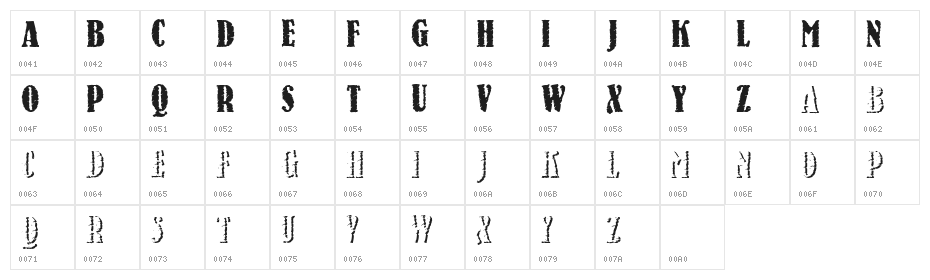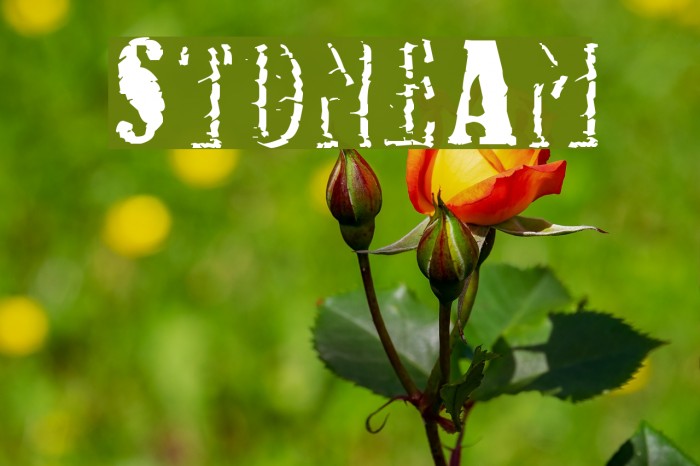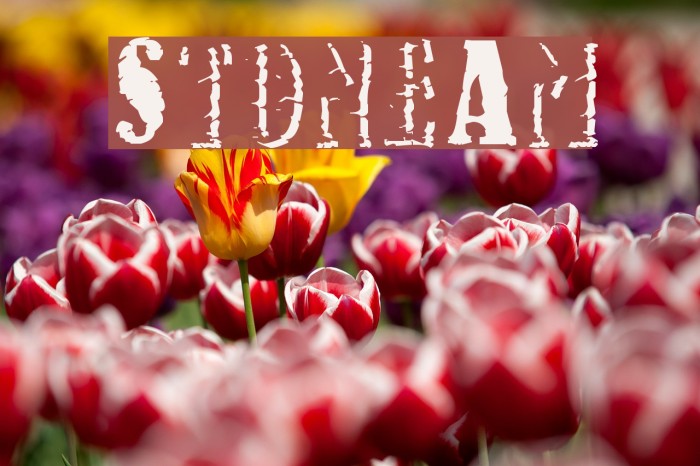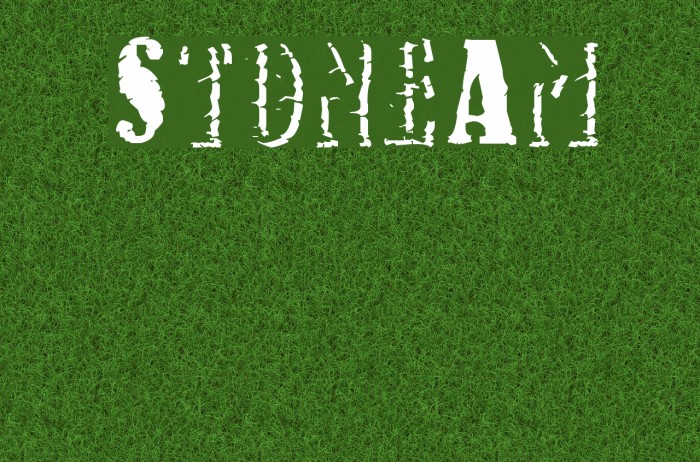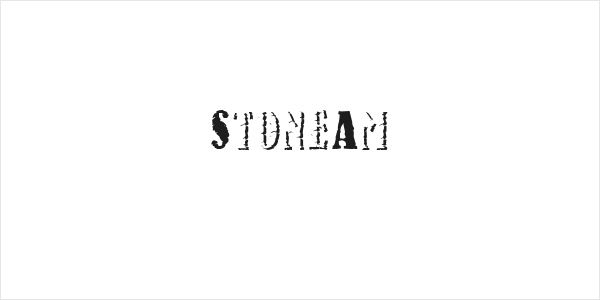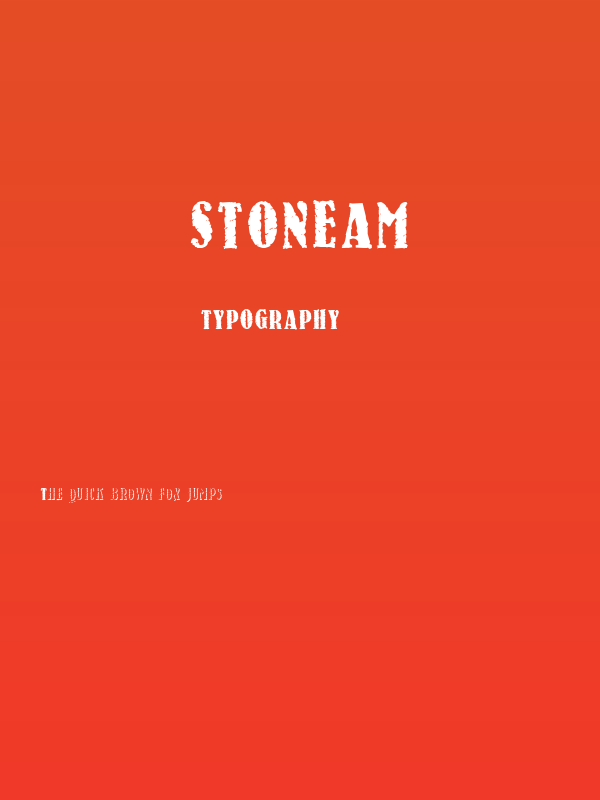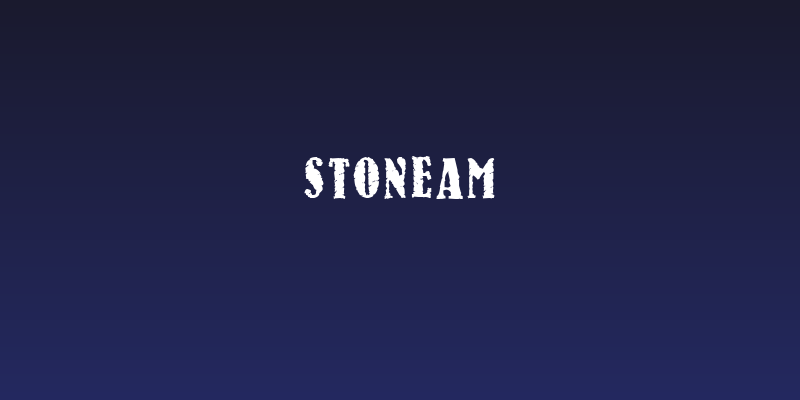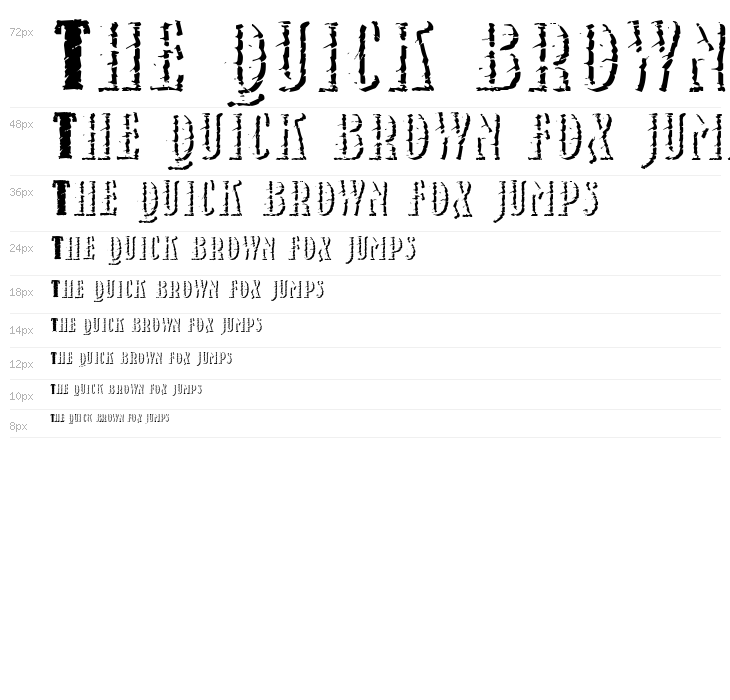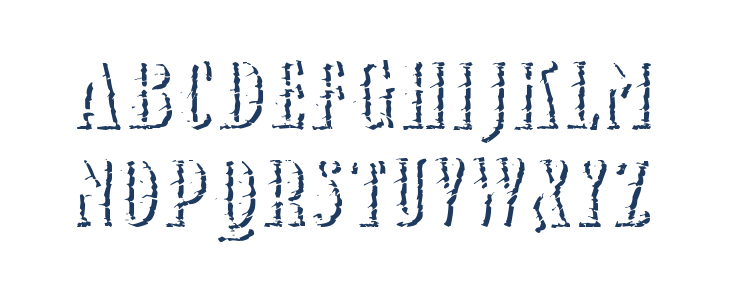
StoneAm Font
StoneAm Description
This font exhibits a rugged and distressed appearance, reminiscent of weathered stone or eroded surfaces. The characters are bold and impactful, with irregular edges that give a sense of texture and depth. The uppercase letters maintain a consistent height, while the lowercase letters are slightly smaller, preserving readability. The numerals and special characters follow the same distressed style, ensuring uniformity across all glyphs. This font's unique aesthetic makes it suitable for projects that require a strong, gritty, or vintage feel. Its bold nature ensures that it stands out, making it ideal for attention-grabbing designs.
| Proposed Projects | Ideal for posters, album covers, branding for outdoor or adventure-themed products, and any design needing a vintage or gritty aesthetic. |